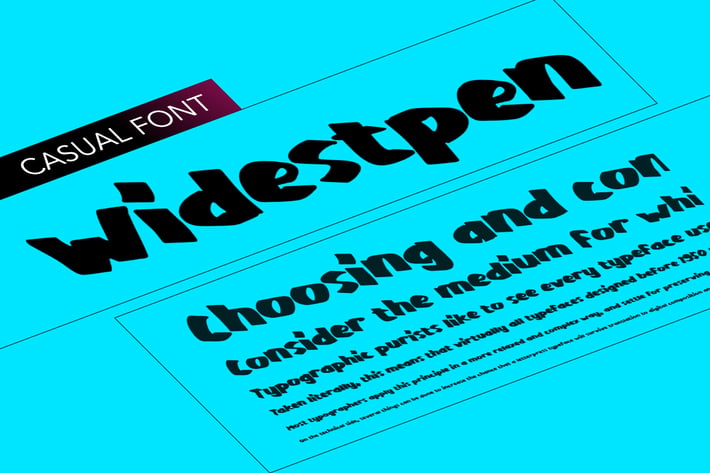
WidestPen, pen like font very wide
WIdestPen\
Font that simulate and feel of natural wide pen.
It's good for casual display is posters, headline and such, with dominant and bold feeling.
Font that simulate and feel of natural wide pen.
It's good for casual display is posters, headline and such, with dominant and bold feeling.